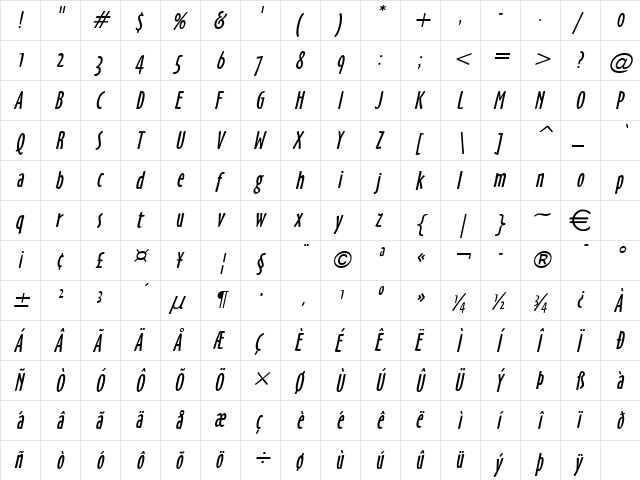
HobbyExtended Italic
Design Context for HobbyExtended Typeface
HobbyExtended takes a measured approach to typography — its balanced proportions and neutral character make it a reliable workhorse for both digital and print work. The slanted form adds forward momentum and visual energy.
Pro Tip: Use HobbyExtended for emphasis, pull quotes, and subheadings where its slanted energy can add rhythm to the layout.